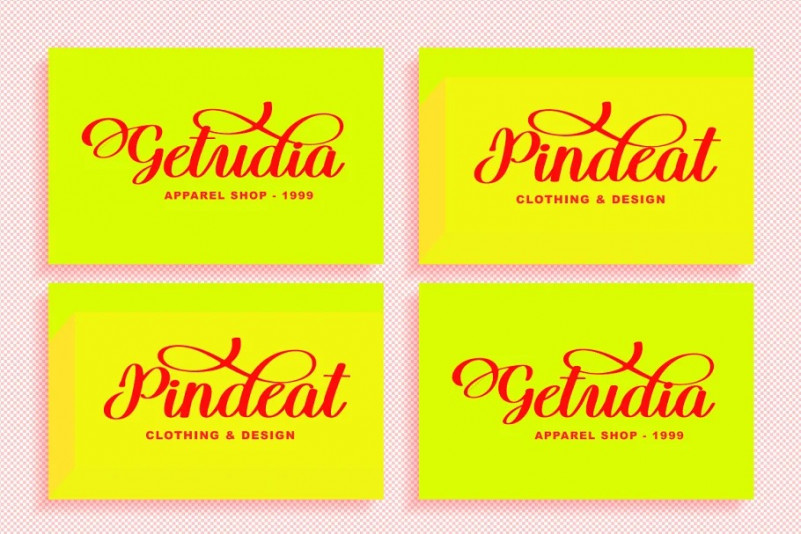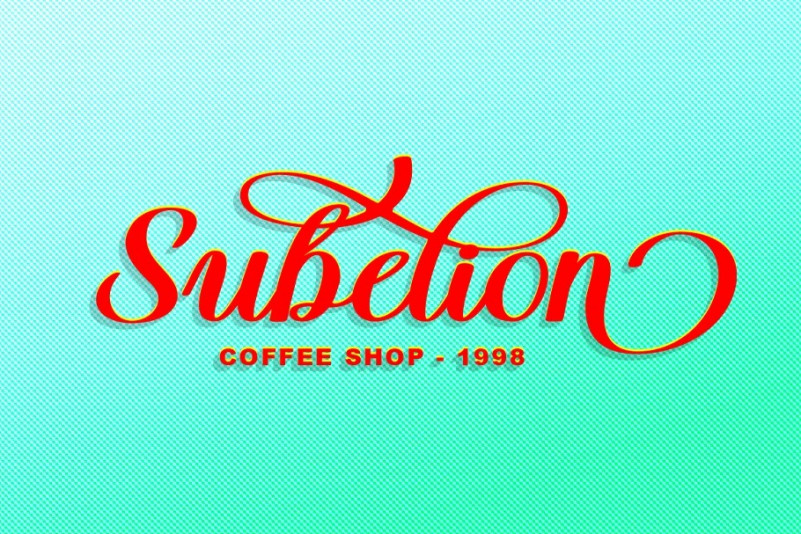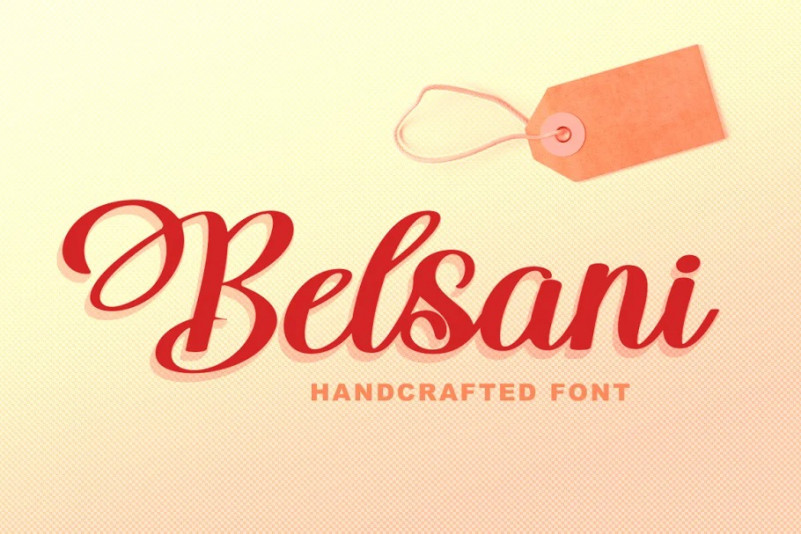
Belsani Font
Belsani Script Font is a bold handmade font of beautiful bold typeface with an authentic touch. This includes OpenType features with PUA encoded such as alternatives and ligature. This font is perfectly made to be applied especially in logos, and various other formal forms such as invitations, labels, logos, magazines, books, greeting / wedding cards, packaging, fashion, make up, stationery, novels, labels or any type of advertising purpose.